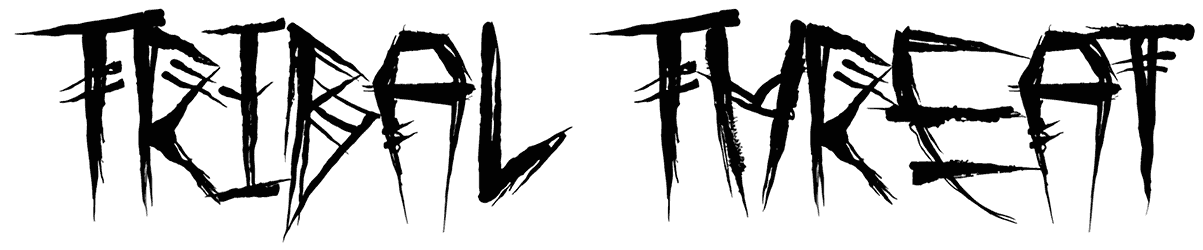
Tribal Threat Font
Tribal Threat is an interesting horror font that seems memorable to your audience. This emo font has a dark style and grabs your attention in the first second. Tribal Threat font can be helpful in several situations, such as posters, prints on T-shirts, and video games, while lowercase letters are not included.
This scary font’s letters have sharp, thin tails and edges, creating a frightening feeling. Moreover, their geometric form makes them unforgettable, so give it a try now.